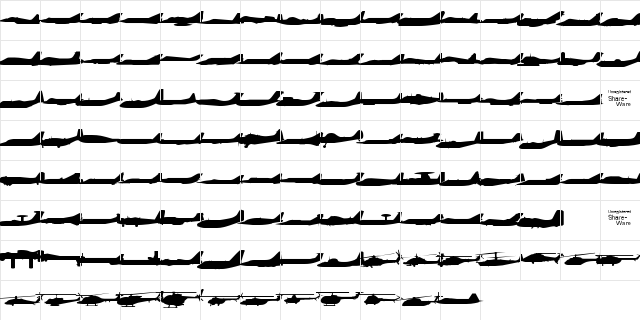
Planes-S-Modern Normal
Design Context for Planes-S-Modern Typeface
Planes-S-Modern is a composed and adaptable typeface that performs quietly and consistently across a wide range of design contexts.
Pro Tip: Use Planes-S-Modern in both headline and body roles to test its range before committing to a single application.